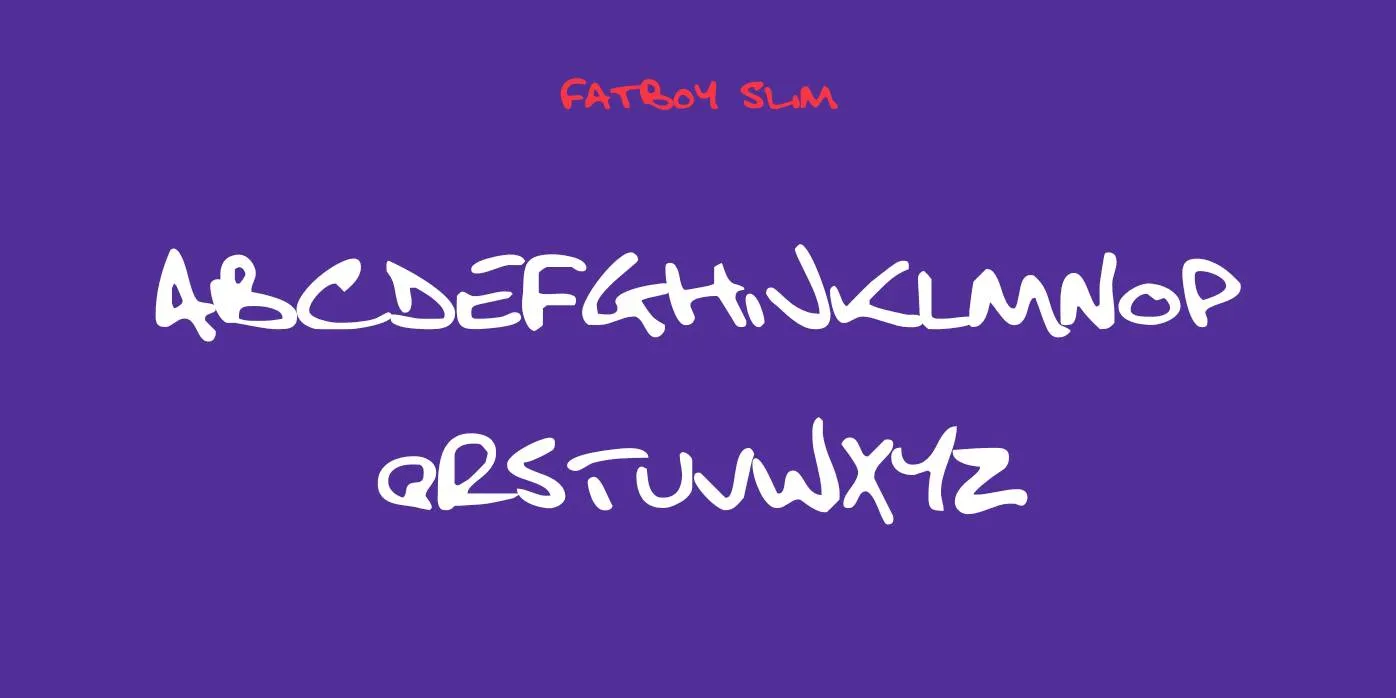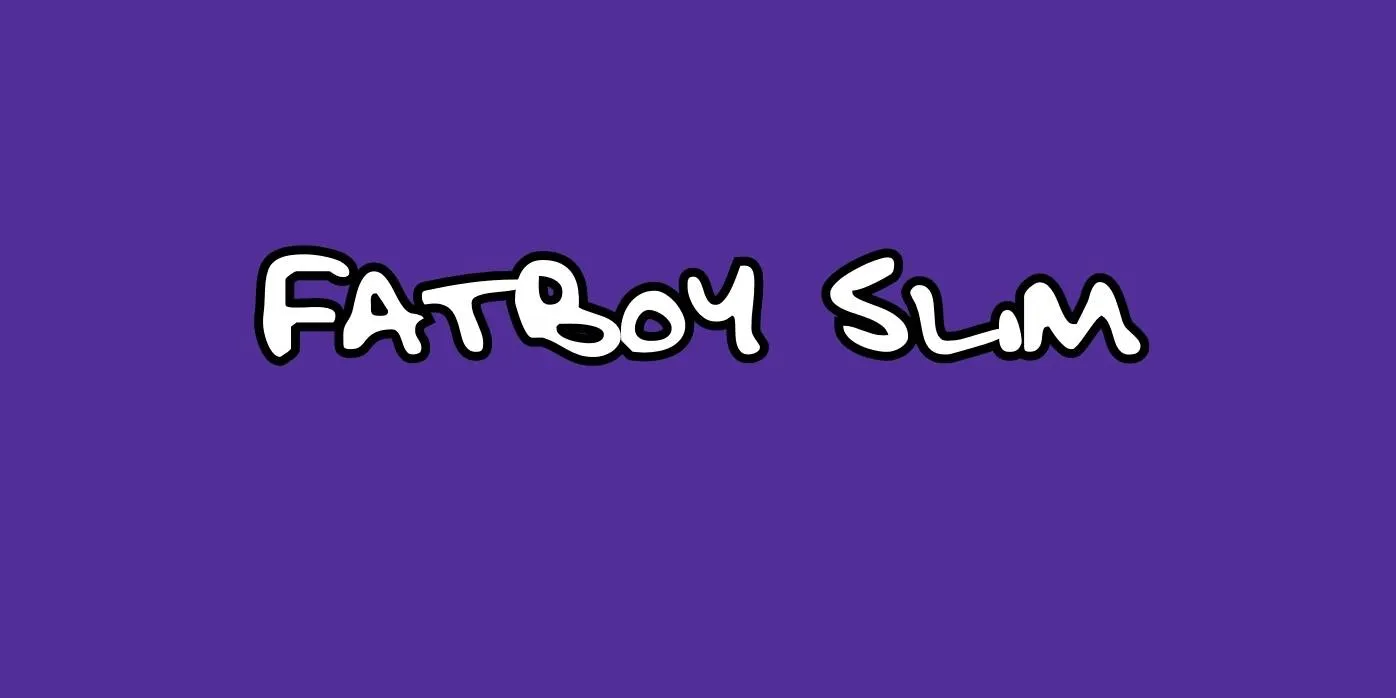
Fatboy Slim Font
Fatboy Slim Font is a very unique twisted font with a modern look. It was designed by a famous designer Enigma. This font has so many characters, 66 glyphs, and 1000 units per Em. This stunning typeface supports the script texture family.
The weight of the font is Semi-bold and its width is extra expanded. The writing direction for this font is mixed-directional including glyphs. The patterned nature of this font is regular and its pitch is not monospaced. It supports an online generator tool through which you can design simple text into stylish online without downloading the font.
You can be used for making modern designs using Adobe Photoshop and other Illustrators. You can also make and design images using Canva. Logos can also be made by using this font. It is a good choice for making eye-catching headlines and website headers.
What is the best alternative to Fatboy Slim Font? Many different fonts can be paired with other fonts but the most similar font is sprinkle font. Is Fatboy Slim a good font to use? Yes, it is a very good font and can be used for many personal and commercial projects.